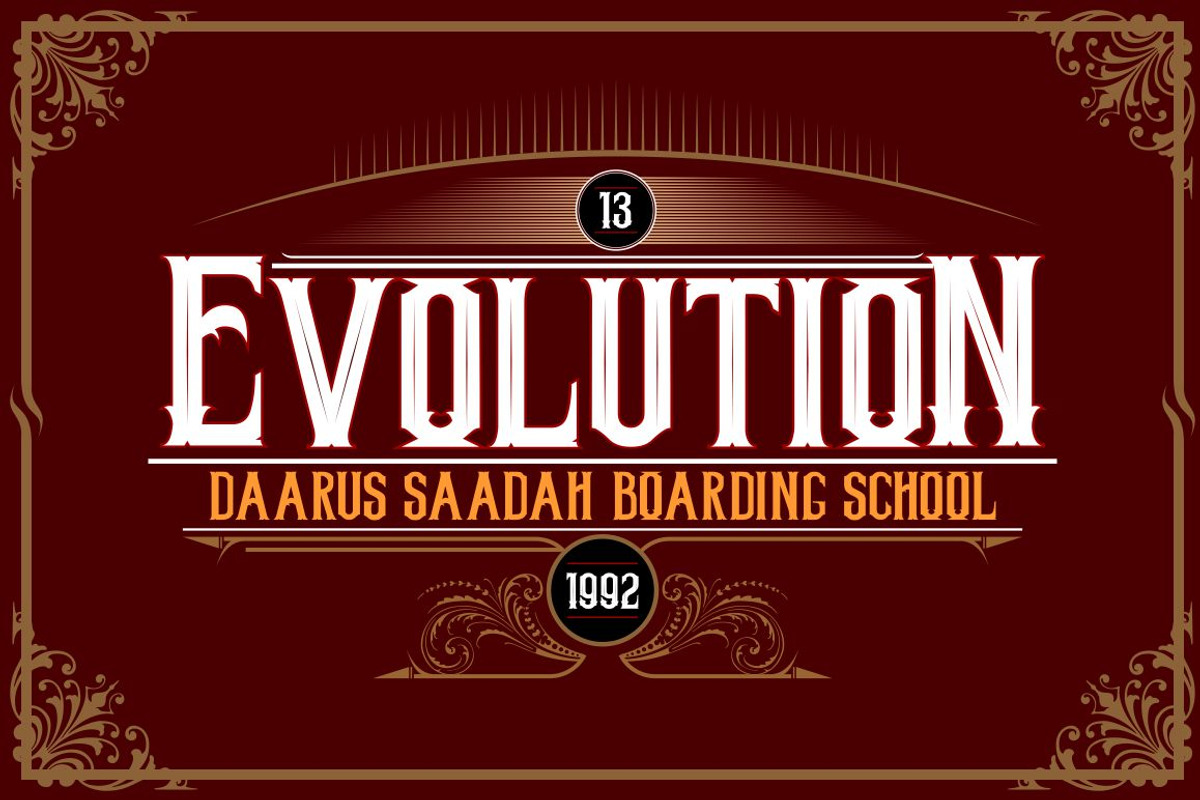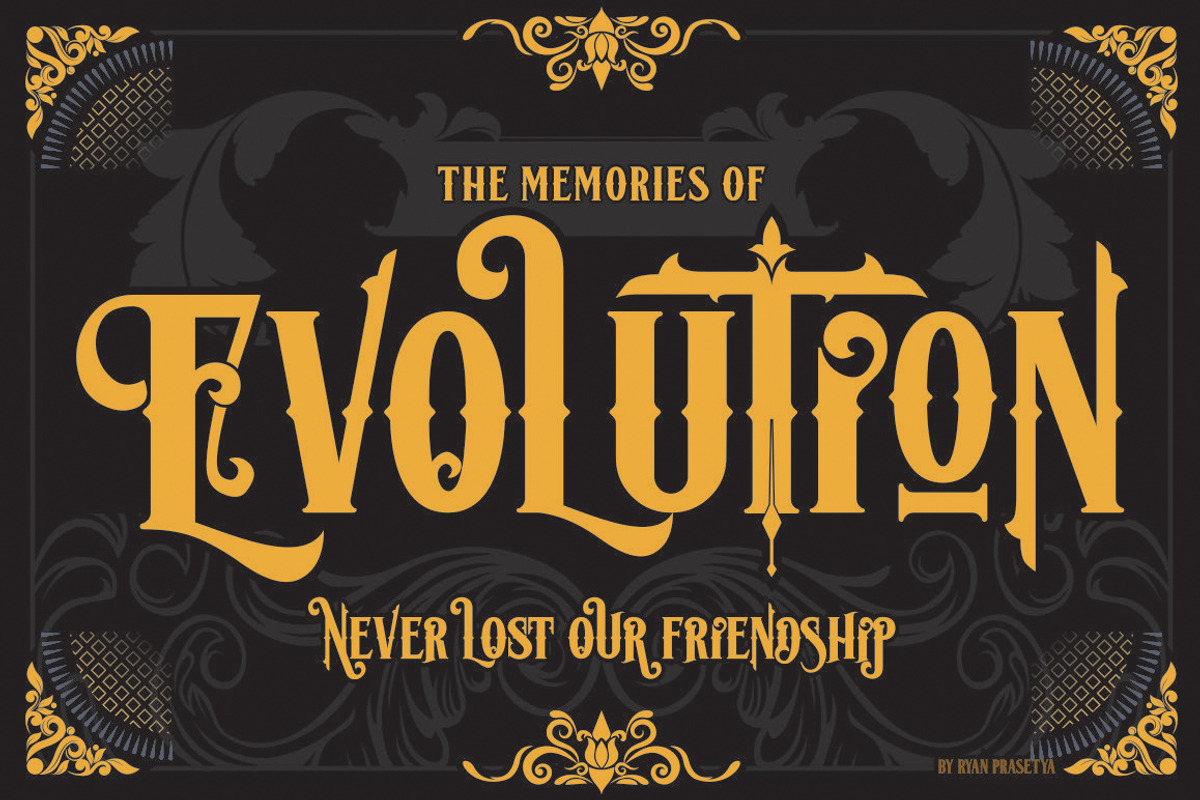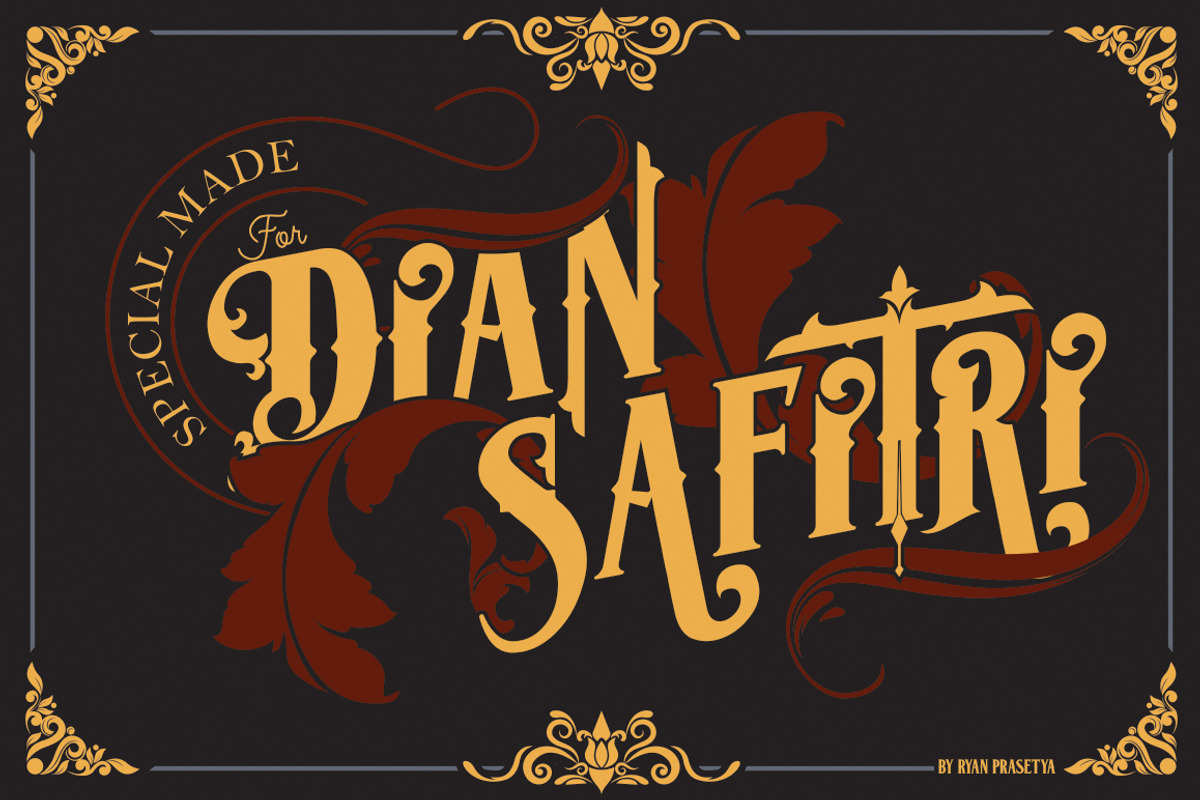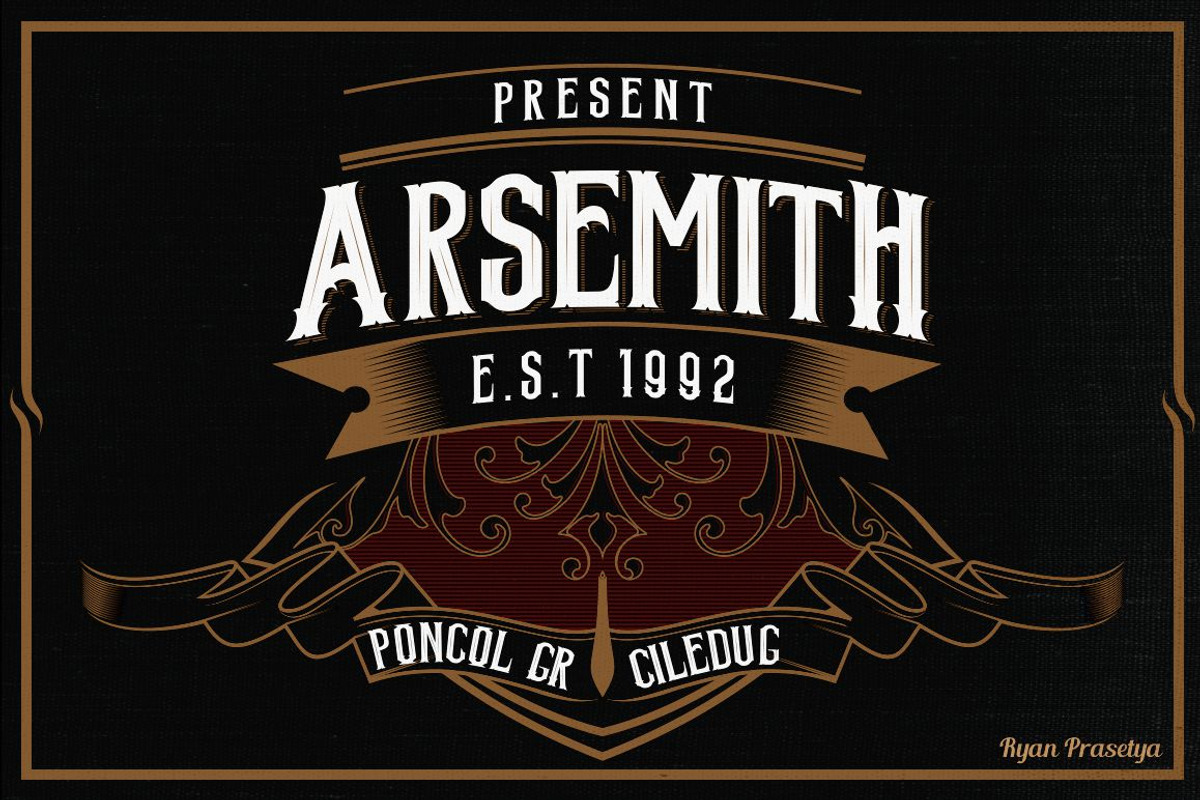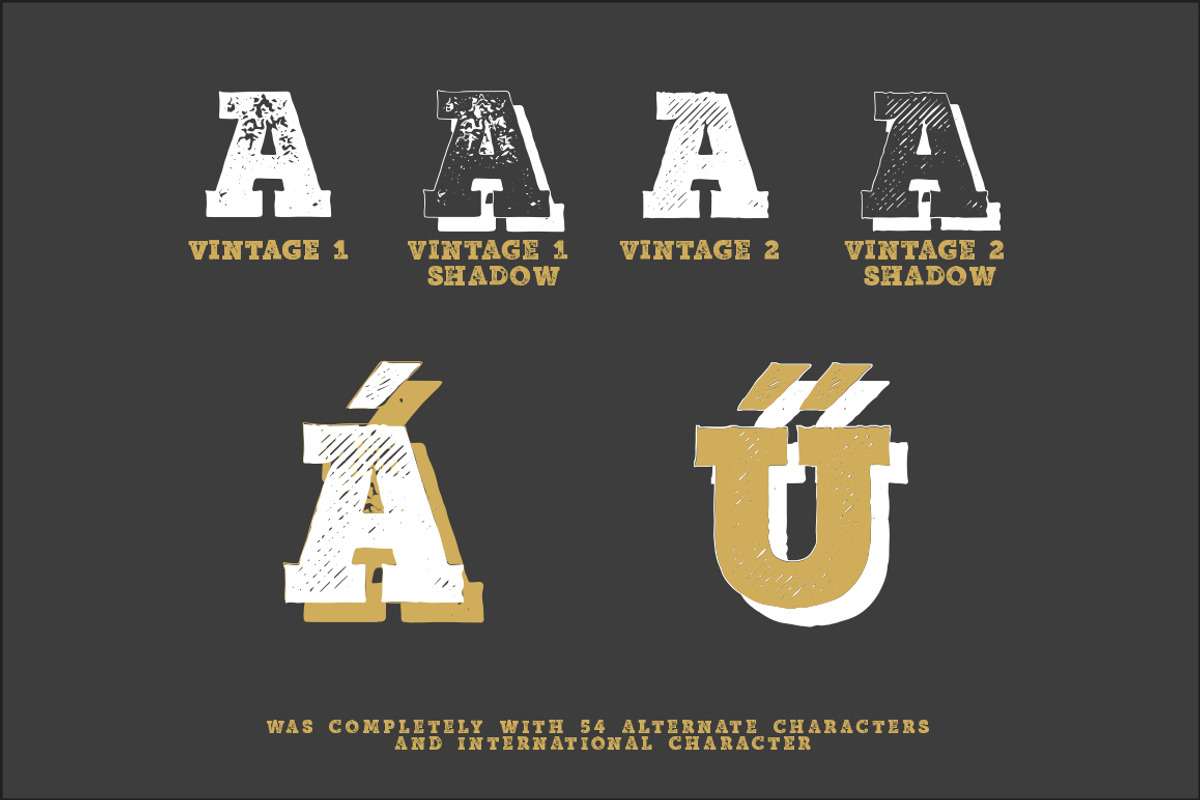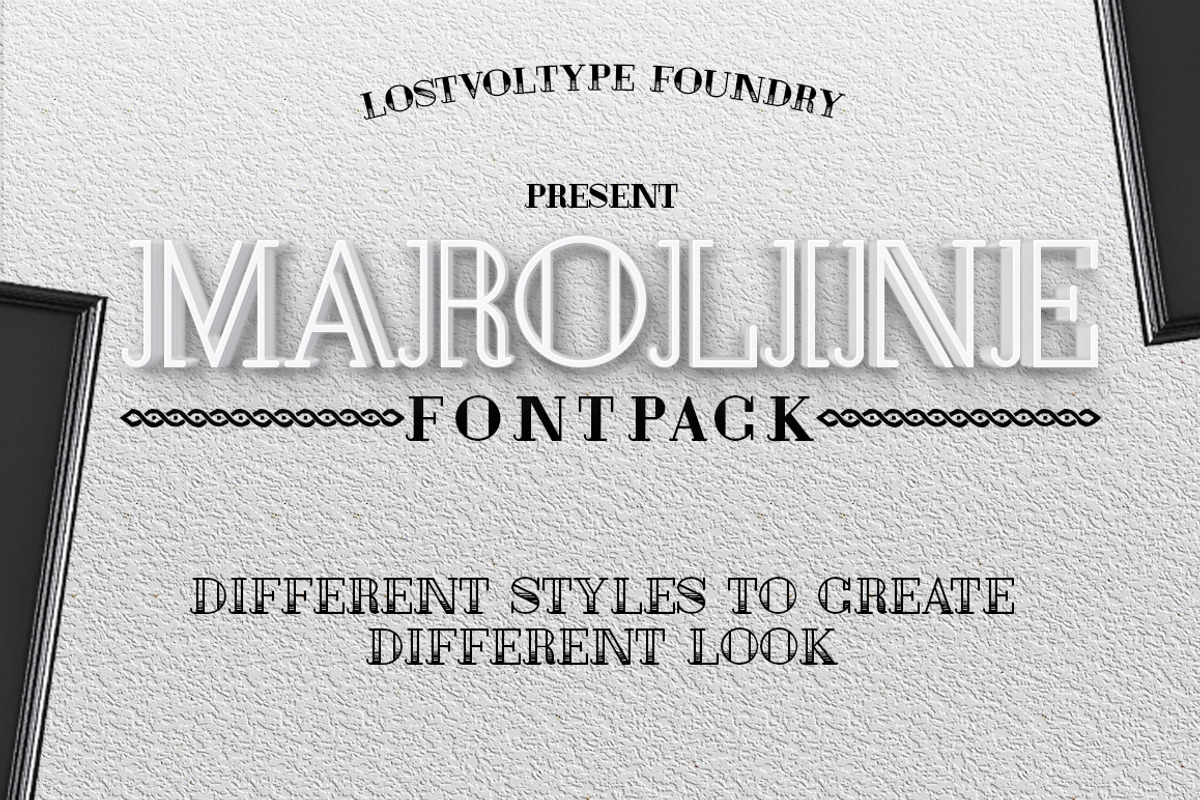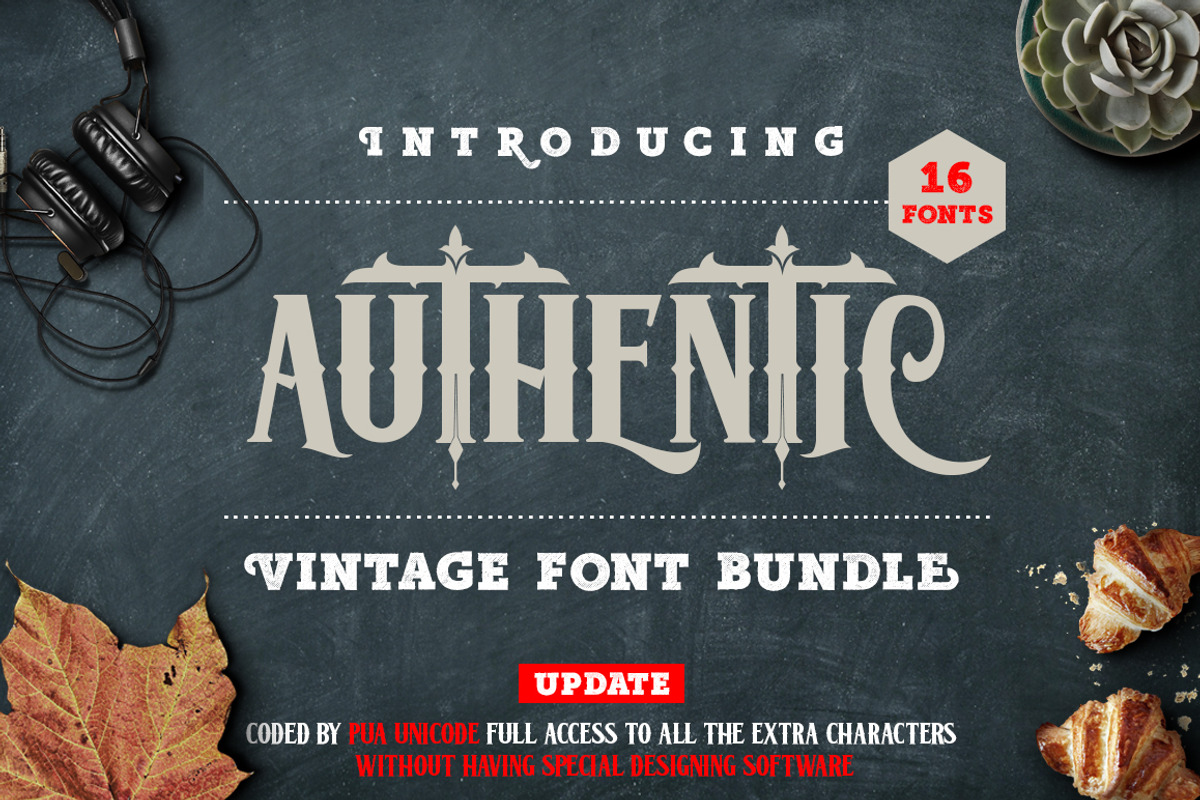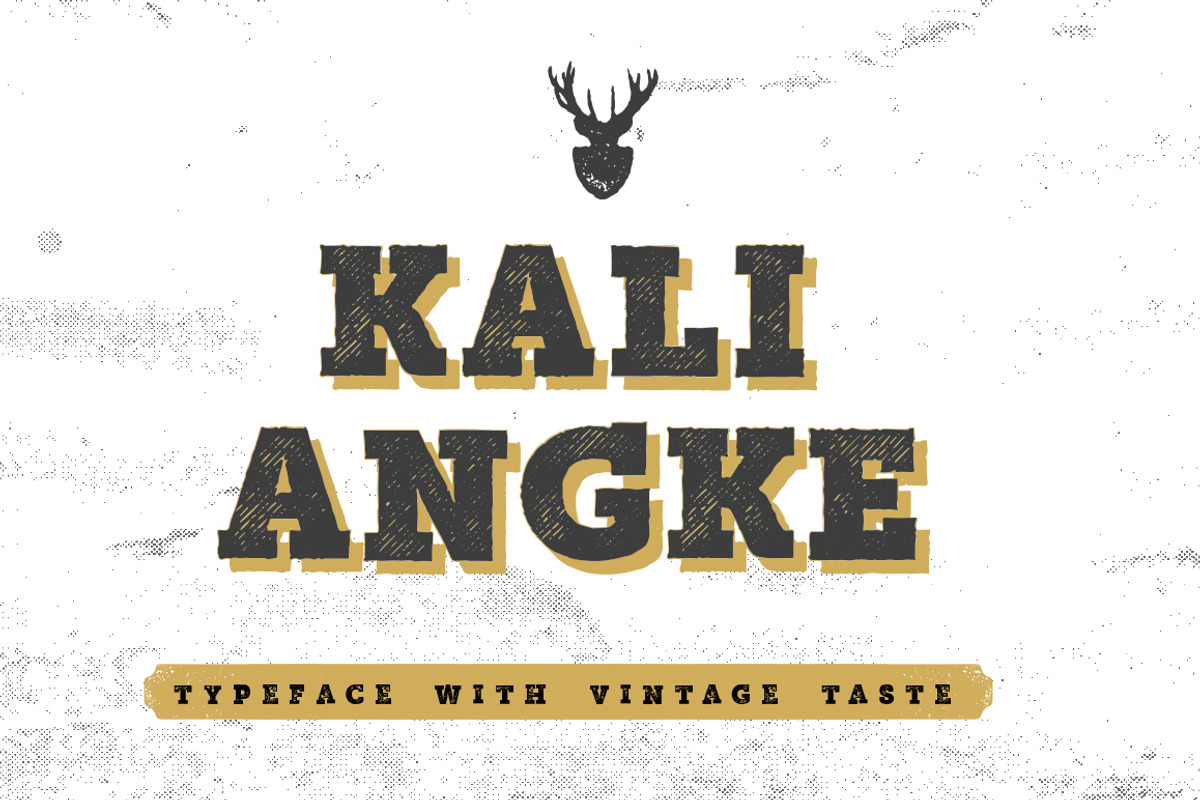
Authentic Vintage Fonts Bundle
Update : Now with PUA Unicode, so you can access all alternate without having special designing program. All you need is Font Book (OS X) or Character Map (Windows)
New bundle from lostvoltype foundry, this bundle is great and perfect for your vintage project. included 16 font from 8 family fonts. what you get in this bundle :
Extra on individual product included
and 3 fonts, i don't sell on this site
we added another extras :